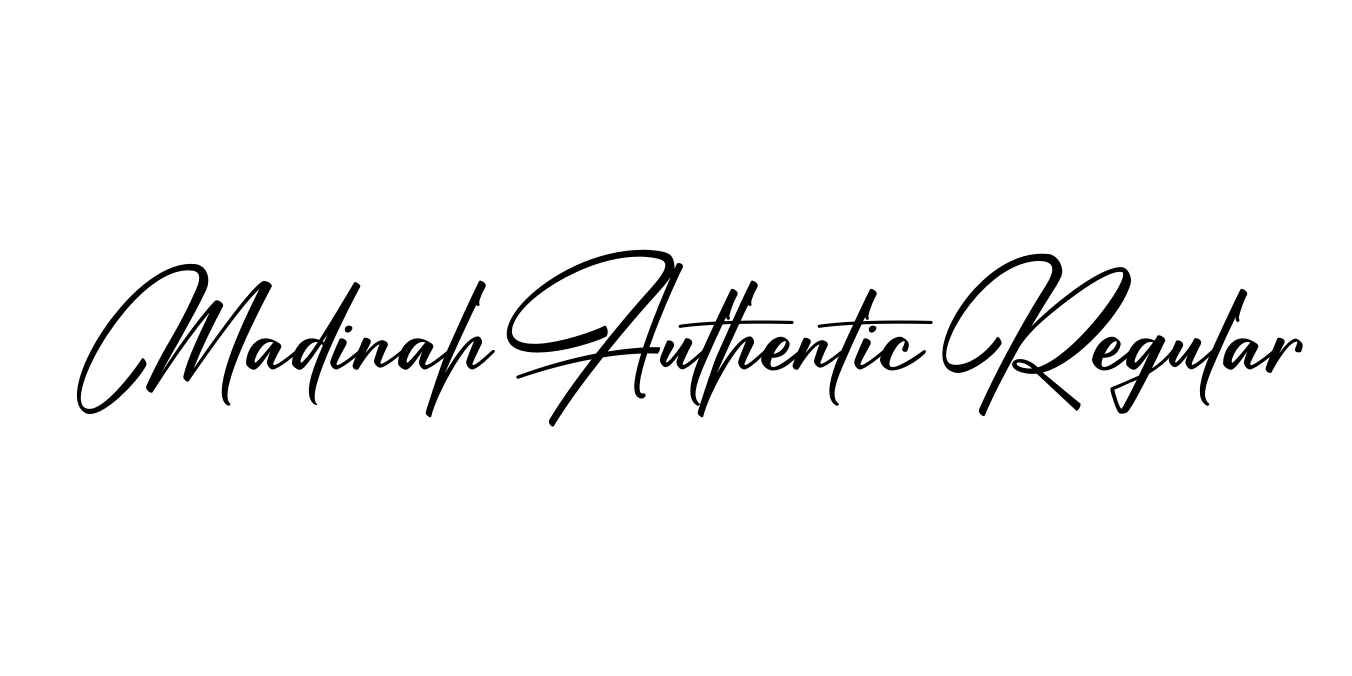
Madinah Authentic Regular
Designed by Sam Parrett (Set Sail Studios)
| Font Name | Madinah Authentic |
| Designer | Sam Parrett (Set Sail Studios) |
Madinah Authentic Regular is a sophisticated and high-energy brush script font designed by the renowned typographer Sam Parrett. It features elegant, flowing strokes that mimic natural hand-lettered calligraphy, offering a perfect balance between professional polish and organic flair. This font has become a staple for designers looking to inject a sense of luxury and personality into their creative projects.
The typeface is particularly well-suited for high-end branding, wedding stationery, and editorial layouts. With its comprehensive character set and fluid transitions, Madinah Authentic Regular ensures that every word looks custom-made. It remains one of the most popular choices for those seeking a modern signature style that stands out in both digital and print media.
Madinah Authentic Regular Best Uses
Adds a romantic and bespoke touch to invitations, RSVP cards, and programs.
Provides a unique, signature-style identity for luxury brands and boutiques.
Captures attention with high-energy, stylish hand-lettered text for Instagram or Pinterest.
Elevates product labels and boxes with a premium, artisan aesthetic.